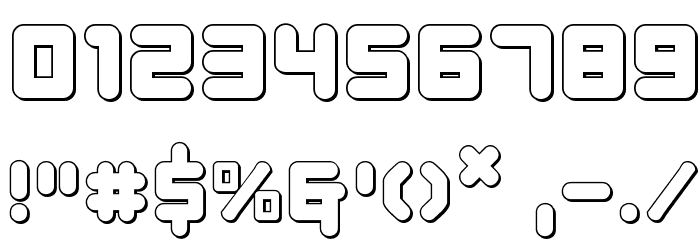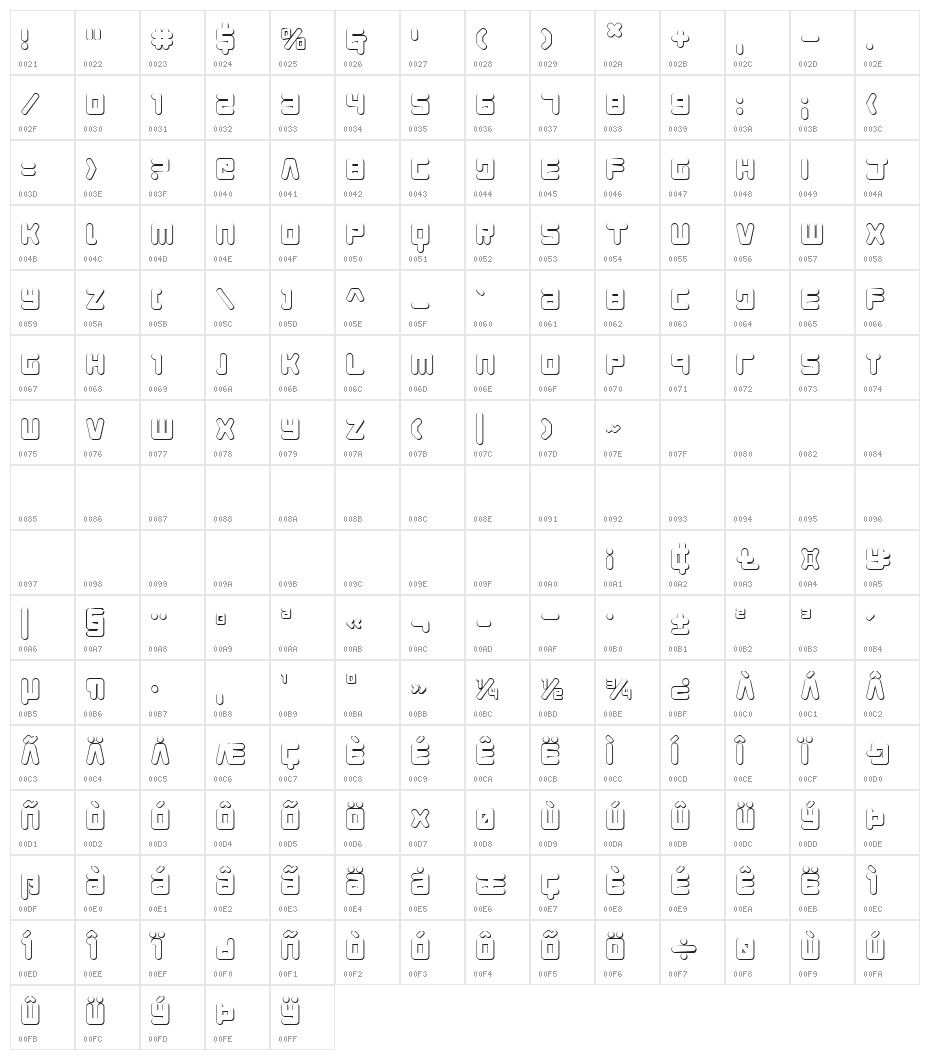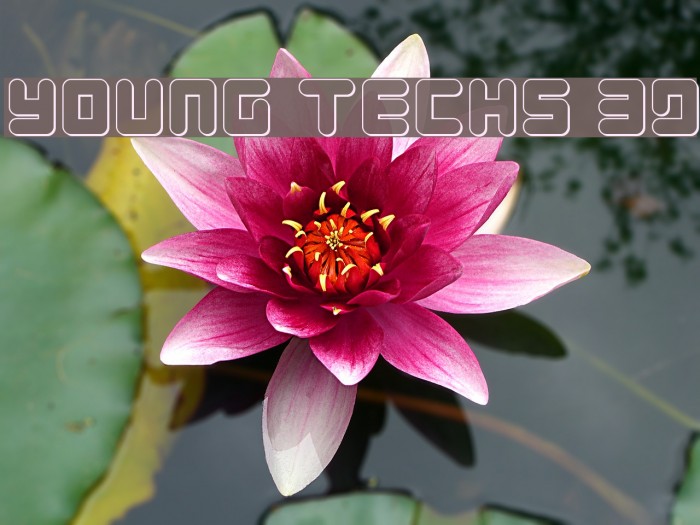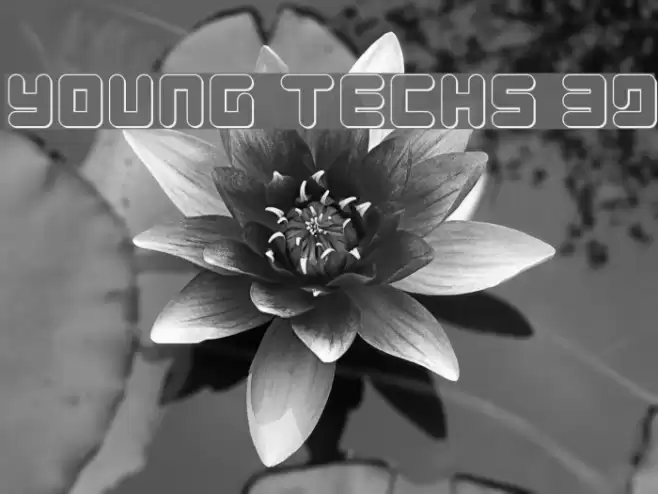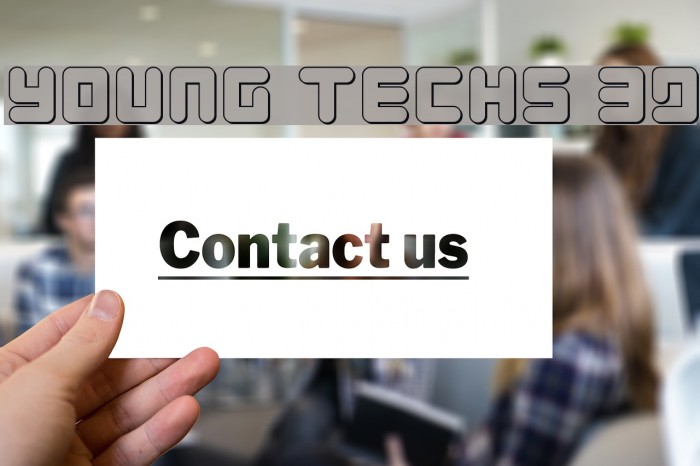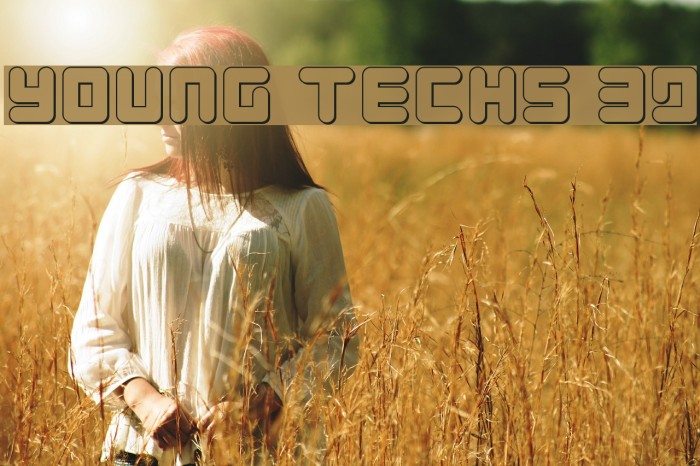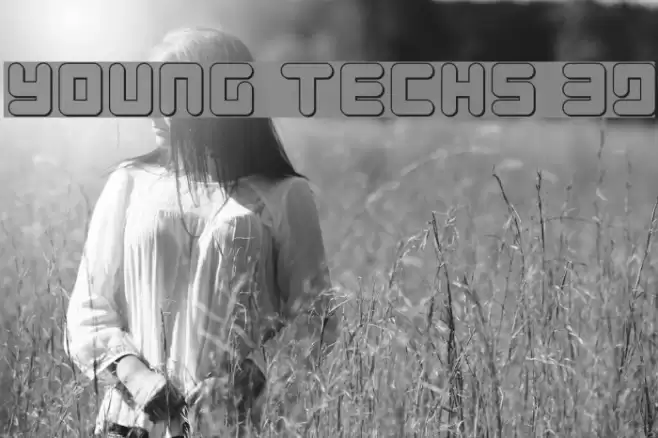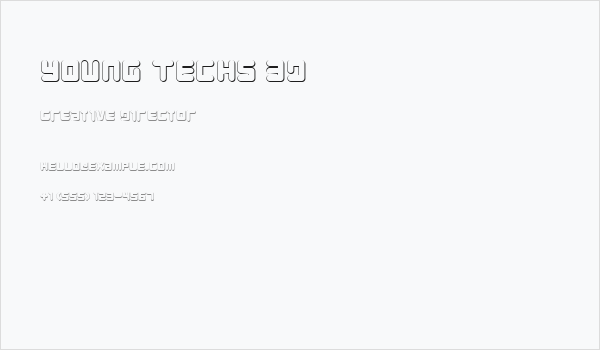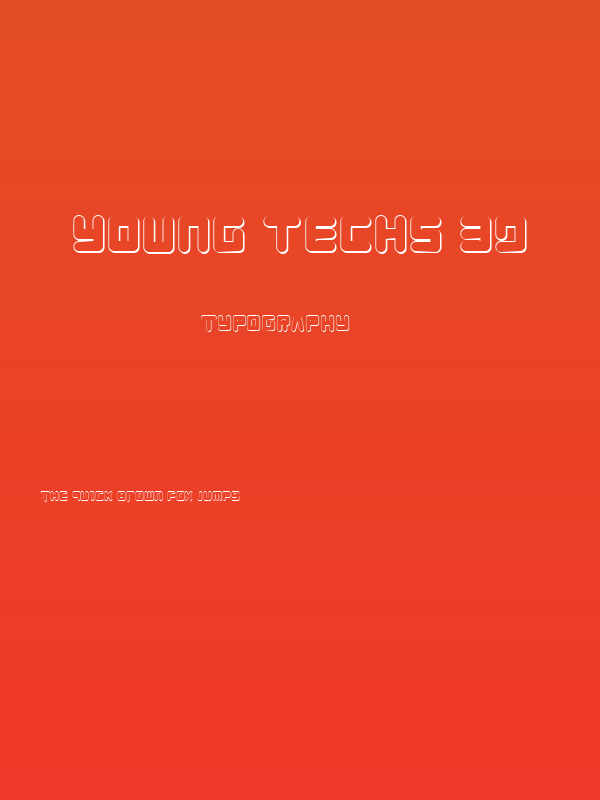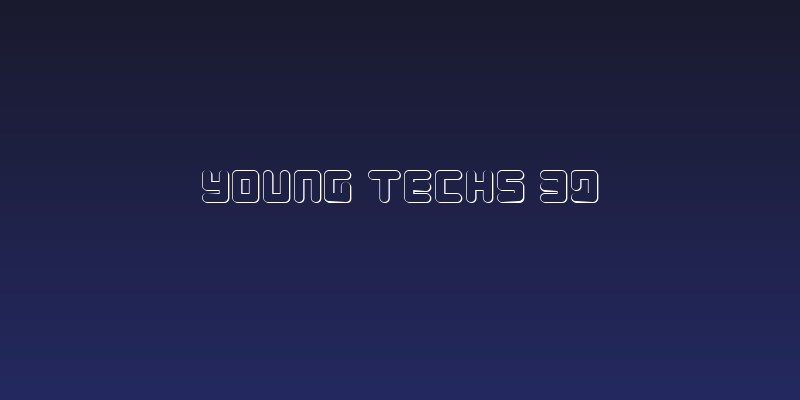
Young Techs 3D Font
Young Techs 3D Description
This font features a futuristic and tech-inspired design, characterized by its bold and geometric letterforms. The characters are outlined, giving them a three-dimensional appearance that adds depth and visual interest. The uppercase and lowercase letters maintain a consistent style, with rounded edges and a uniform stroke width that enhances readability. The numbers and special characters follow the same design principles, ensuring a cohesive look across all elements. This font's unique style makes it ideal for projects that require a modern and innovative aesthetic.
| Use Case | Headlines, Logos, Digital Interfaces |
| Proposed Projects | Ideal for technology branding, video game titles, sci-fi movie posters, and modern digital interfaces. |